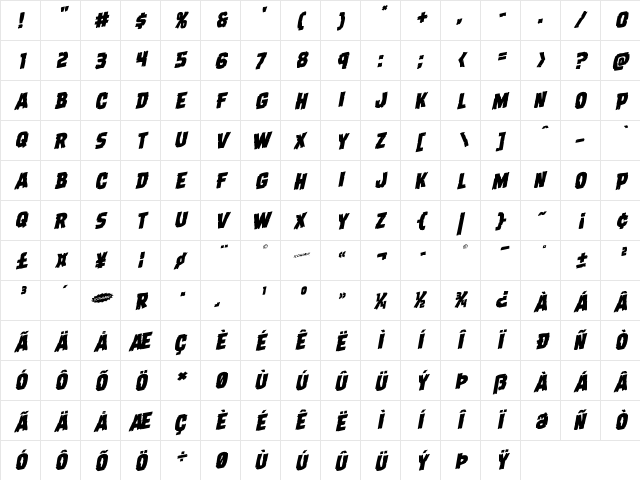
Dread Ringer Rotalic Italic Font Preview
Dread Ringer Rotalic Italic
Dread Ringer Rotalic Italic Font Details
Design Context for Dread Ringer Rotalic Typeface
Dread Ringer Rotalic is a composed and adaptable typeface that performs quietly and consistently across a wide range of design contexts. The dynamic lean of this cut emphasises speed and emphasis in any layout.
Pro Tip: Try Dread Ringer Rotalic for annotation and caption copy alongside an upright companion — the contrast in angle creates a dynamic but ordered typographic system.